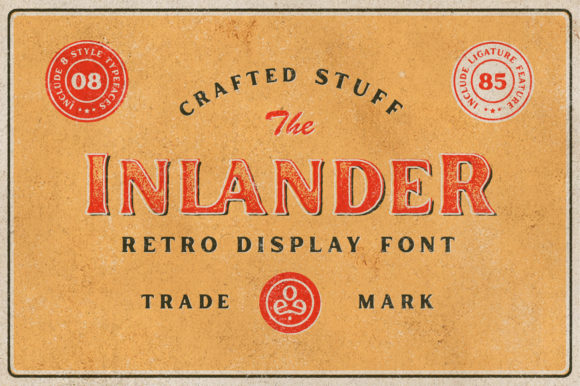
In a world seeking originality, meet Inlander - a font family that captivates with its vibrant personality and boundless possibilities. Crafted by the skilled hands of Edignwn Type, Inlander is a display font brimming with character and charm. Its distinct quirks and playful demeanor make it a versatile choice for diverse design endeavors, inspiring creativity and leaving an unforgettable impression.
Journey into the realm of captivating visuals with Inlander, where ordinary text transforms into an extraordinary spectacle. Its meticulously crafted all-caps, numerals, punctuation, and symbols dance harmoniously, creating a visual feast that commands attention. Unleash the power of ligatures to add a touch of elegance and sophistication to your designs, while multilingual support ensures global accessibility.
Inlander's versatility knows no bounds. Whether it's a bold logotype demanding attention, an evocative poster conveying a powerful message, or a distinctive label adding charm to your products, Inlander effortlessly adapts to your creative vision. Its presence elevates packaging designs, breathes life into branding initiatives, and adds a touch of whimsy to custom creations.
With Inlander at your disposal, discover a world of limitless expression. Its unique style seamlessly blends with various design aesthetics, from vintage-inspired projects to modern and contemporary masterpieces. Let your imagination soar and embrace the endless possibilities Inlander presents.